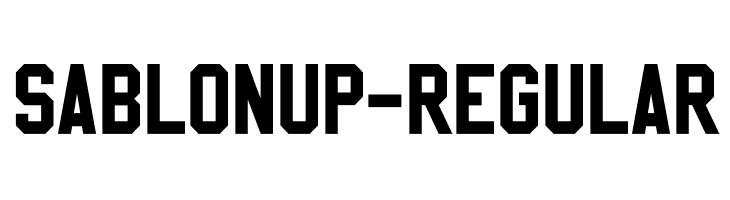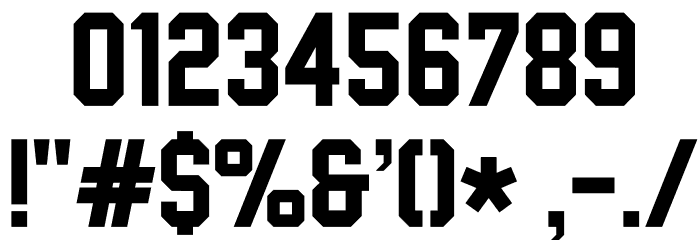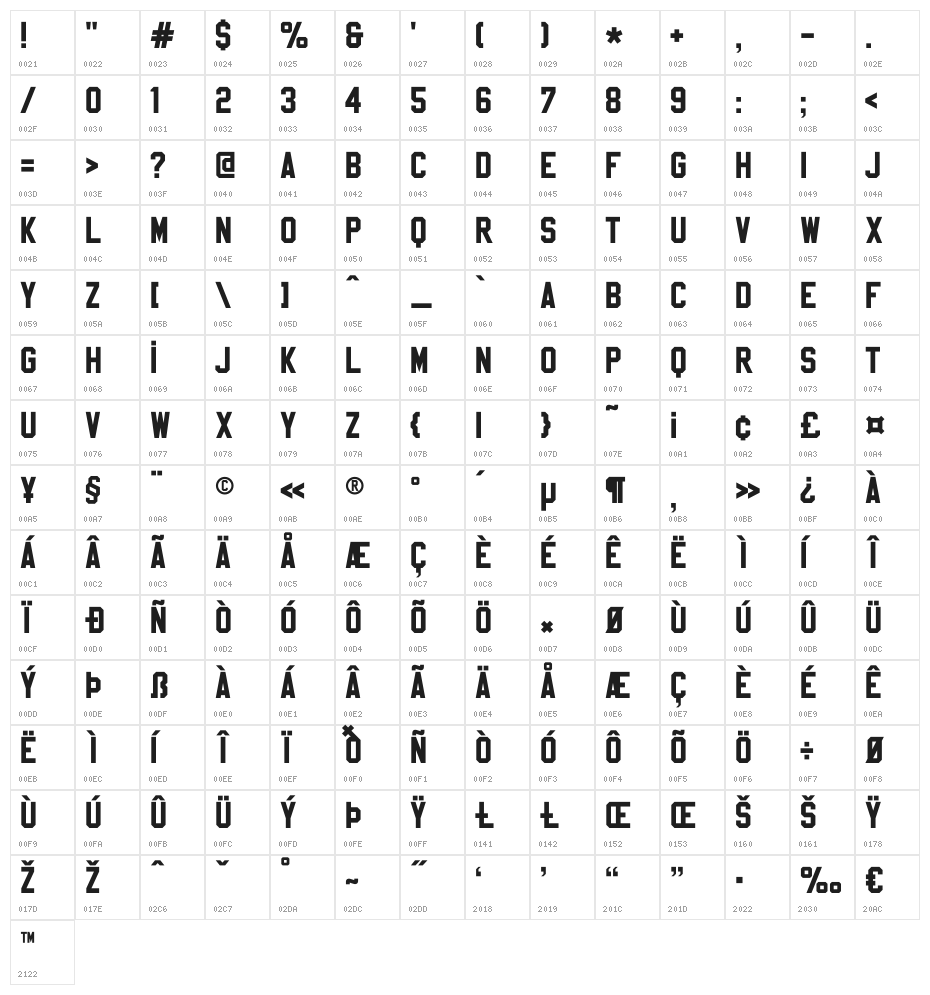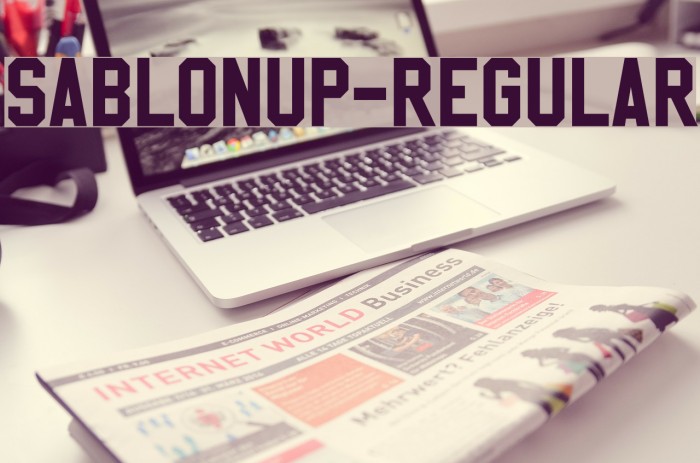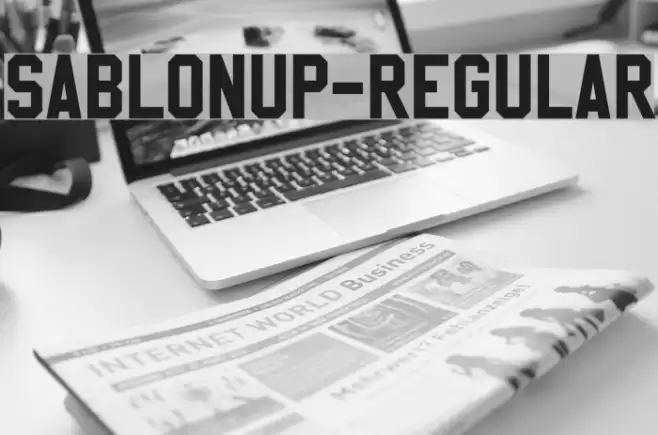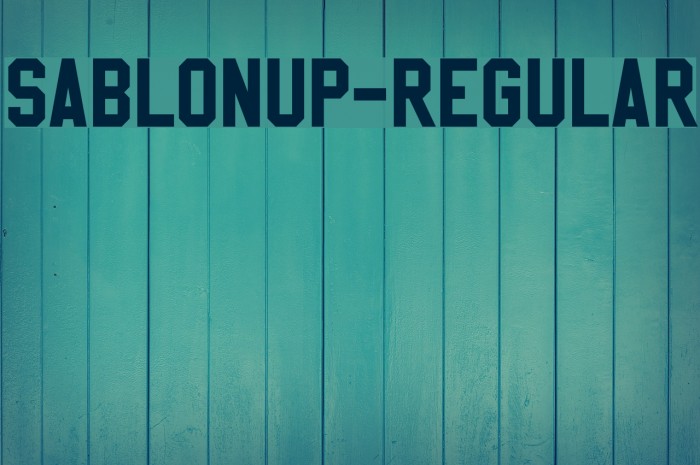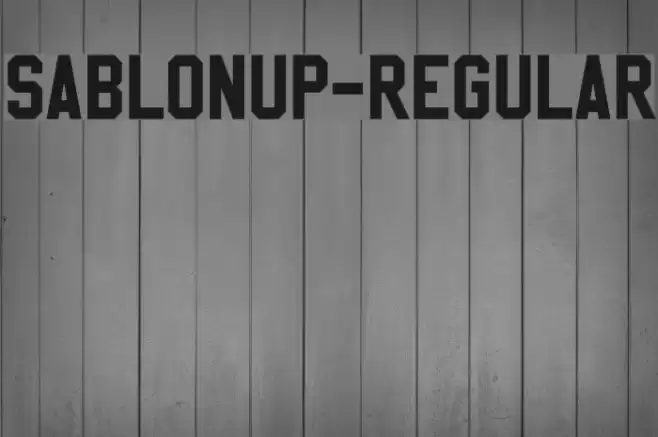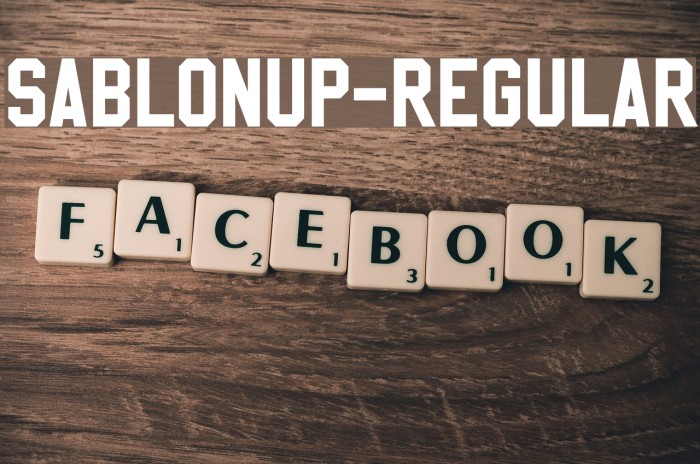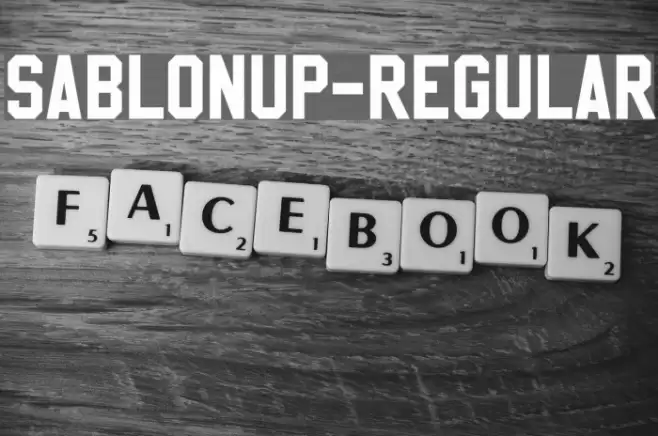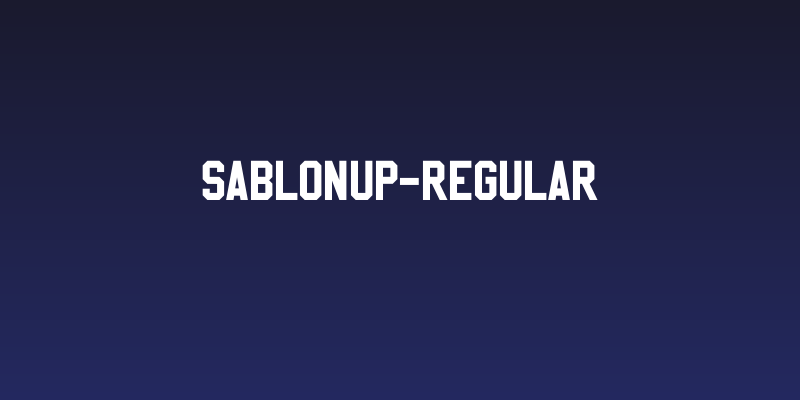
SablonUp-Regular Font
SablonUp-Regular Description
This font features a bold and robust design with a strong geometric influence. The characters are constructed with sharp angles and straight lines, giving it a modern and industrial feel. The uppercase letters are particularly striking, with a uniform height and width that create a cohesive and impactful appearance. The numbers and special characters maintain the same boldness and geometric style, ensuring consistency across all text elements. This font is ideal for making a statement, with its high visibility and strong presence.
| Proposed Projects | Ideal for posters, headlines, branding, and any project requiring a strong visual impact. |